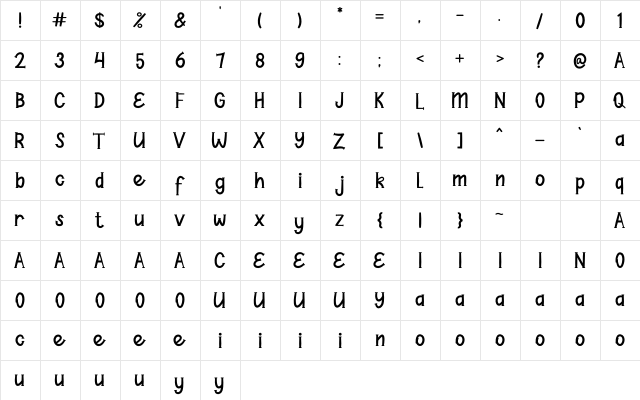
Write Work Regular Font Preview
Write Work Regular
Write Work Regular Font Details
| Foundry | Andriyanto au |
| Designer | Andriyanto au |
Design Context for Write Work Typeface
Write Work takes a measured approach to typography — its balanced proportions and neutral character make it a reliable workhorse for both digital and print work.